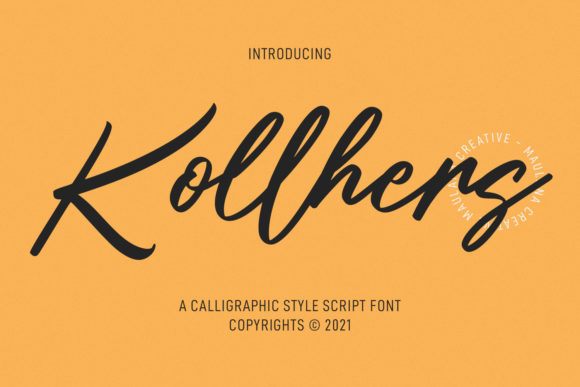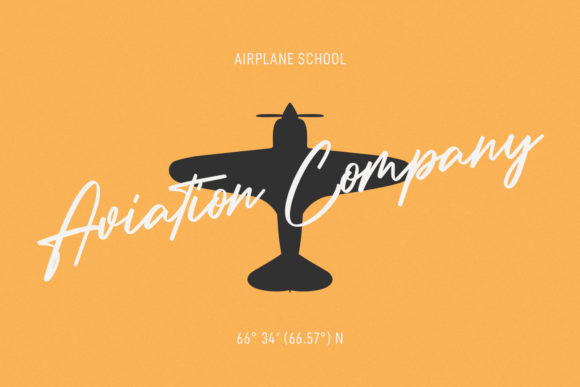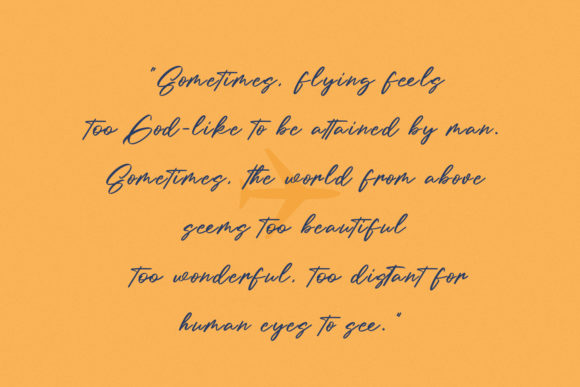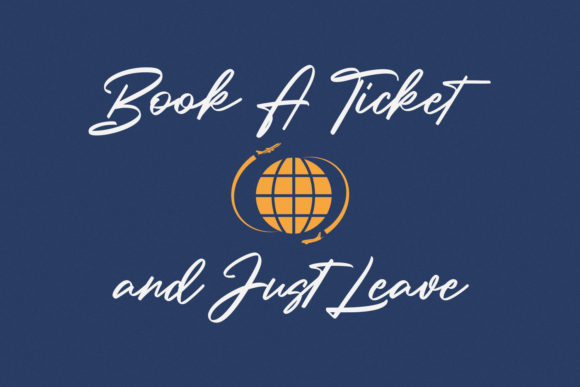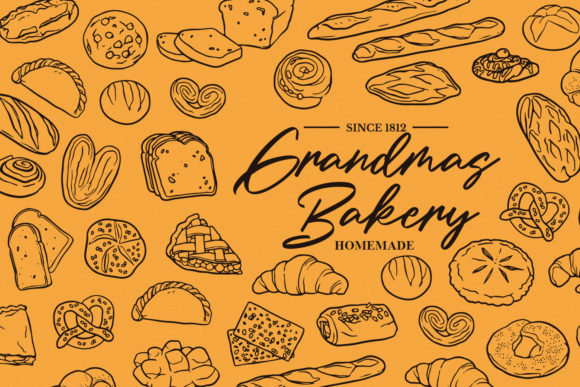
About Kollhers Font
Kollhers is a lovely and delicate script font that exudes elegance and class. This font was particularly crafted for those who need a beautiful and refreshing look to their designs.